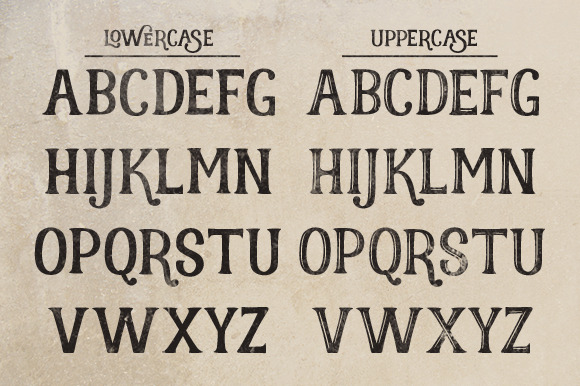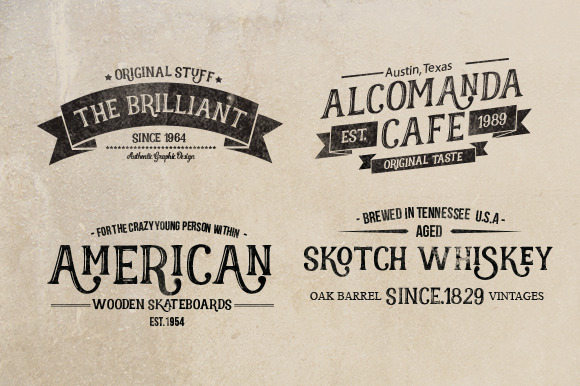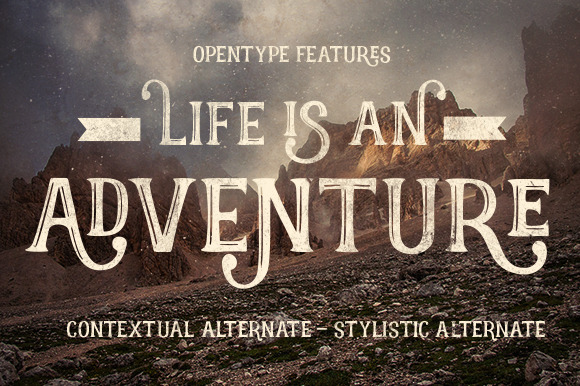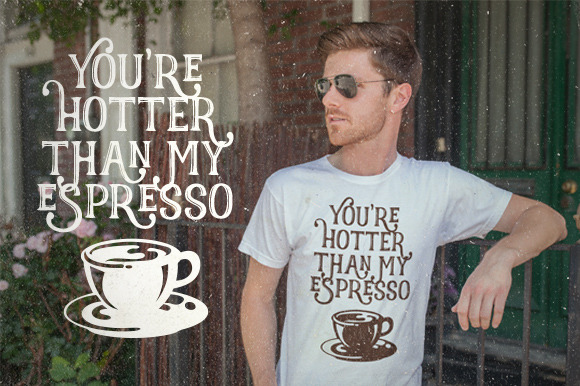
Realist Font
Realist Font font display is made by hand, inspired by classic posters. With a combination of highly vintage feels and the OpenType features put together on it, you can Easily create an attractive harmonic message for your design.
Realist comes with two variations of each variation combined with uppercase and lowercase letters.
This font is suitable for greeting cards, posters, labels, t-shirt design, etc.